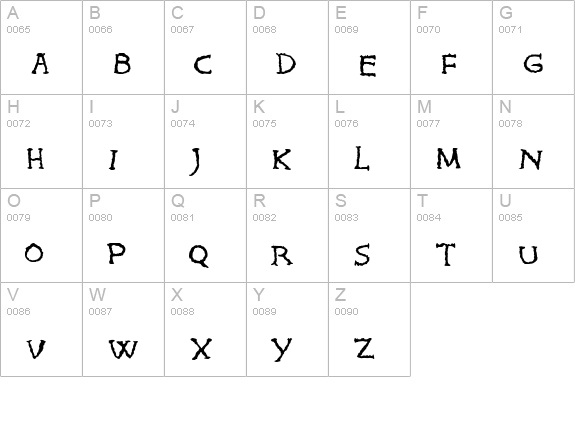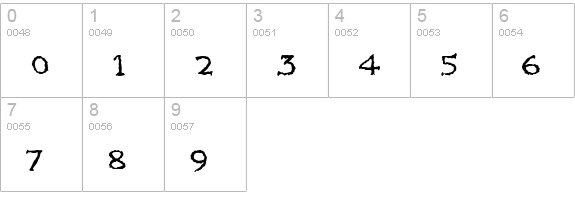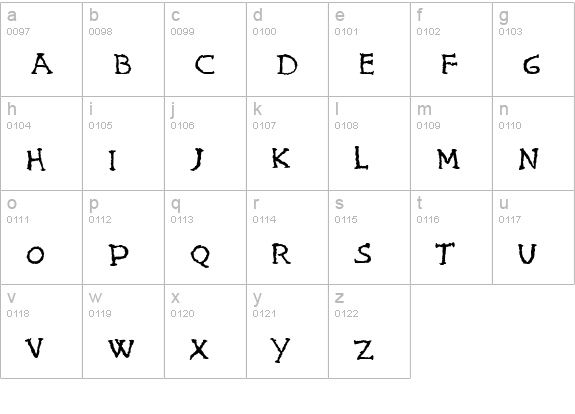
Introducing the majestic and regal King Harold font, a timeless typeface that exudes elegance and sophistication. With its intricate details and vintage charm, King Harold font is perfect for adding a touch of royalty to your designs. This versatile font can be used for a variety of projects, from invitations to branding to packaging. What makes King Harold font even more appealing is that it is available for free download at FontsMarket.com. Yes, you read that right - this exquisite font can be yours at no cost! Don't miss out on the opportunity to elevate your designs with the beauty of King Harold font. Download it today and let your creativity reign supreme.